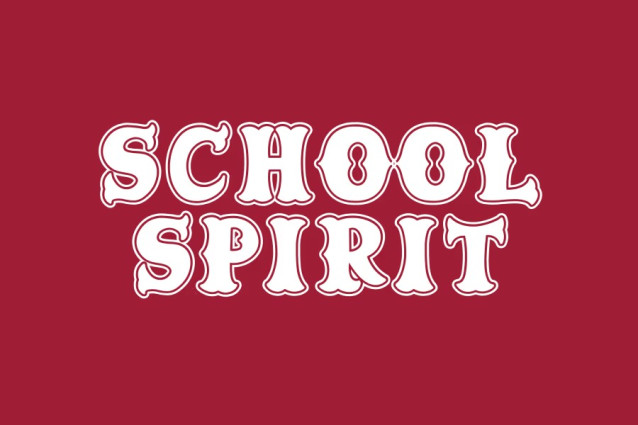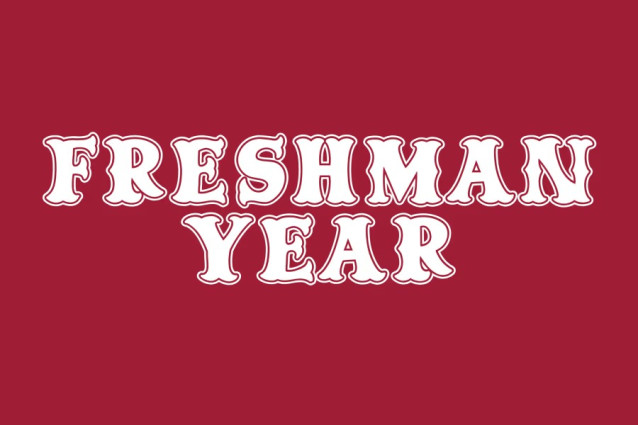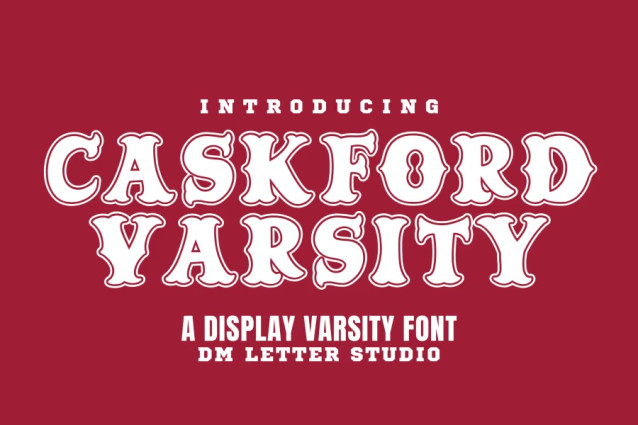
Caskford Varsity Font
Caskford Varsity Font blends classic old western character with bold varsity letterforms to create a strong, confident display font. It carries the rugged spirit of frontier signage while adding the solid structure and weight you expect from collegiate typography. The shapes are bold and balanced, so text stays readable at any size. Use it for logos, apparel, team merch, posters, labels, signage, and vintage-inspired branding. As a result, your designs feel powerful, nostalgic, and built to stand out.
Fast layouts with the Caskford Varsity Font
Start with short, bold words to let the varsity structure shine. After that, add supporting text in a clean sans or simple serif font. Because Caskford Varsity has strong geometry, it works especially well in badges, arches, and stacked layouts. In addition, it looks great on jersey-style graphics, western badges, and vintage sports posters. Finally, try color pairs like navy & cream, black & gold, maroon & ivory, or forest & tan to lock in the varsity mood.